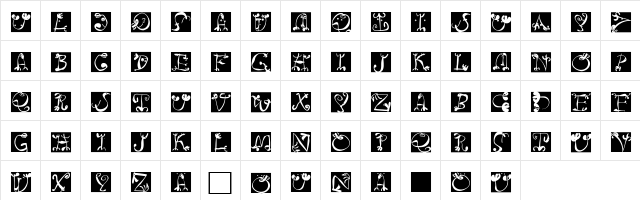
CircusBoldSquaresInvers Regular
Design Context for CircusBoldSquaresInvers Typeface
CircusBoldSquaresInvers is a composed and adaptable typeface that performs quietly and consistently across a wide range of design contexts. The heavy weight commands attention and anchors typographic hierarchies.